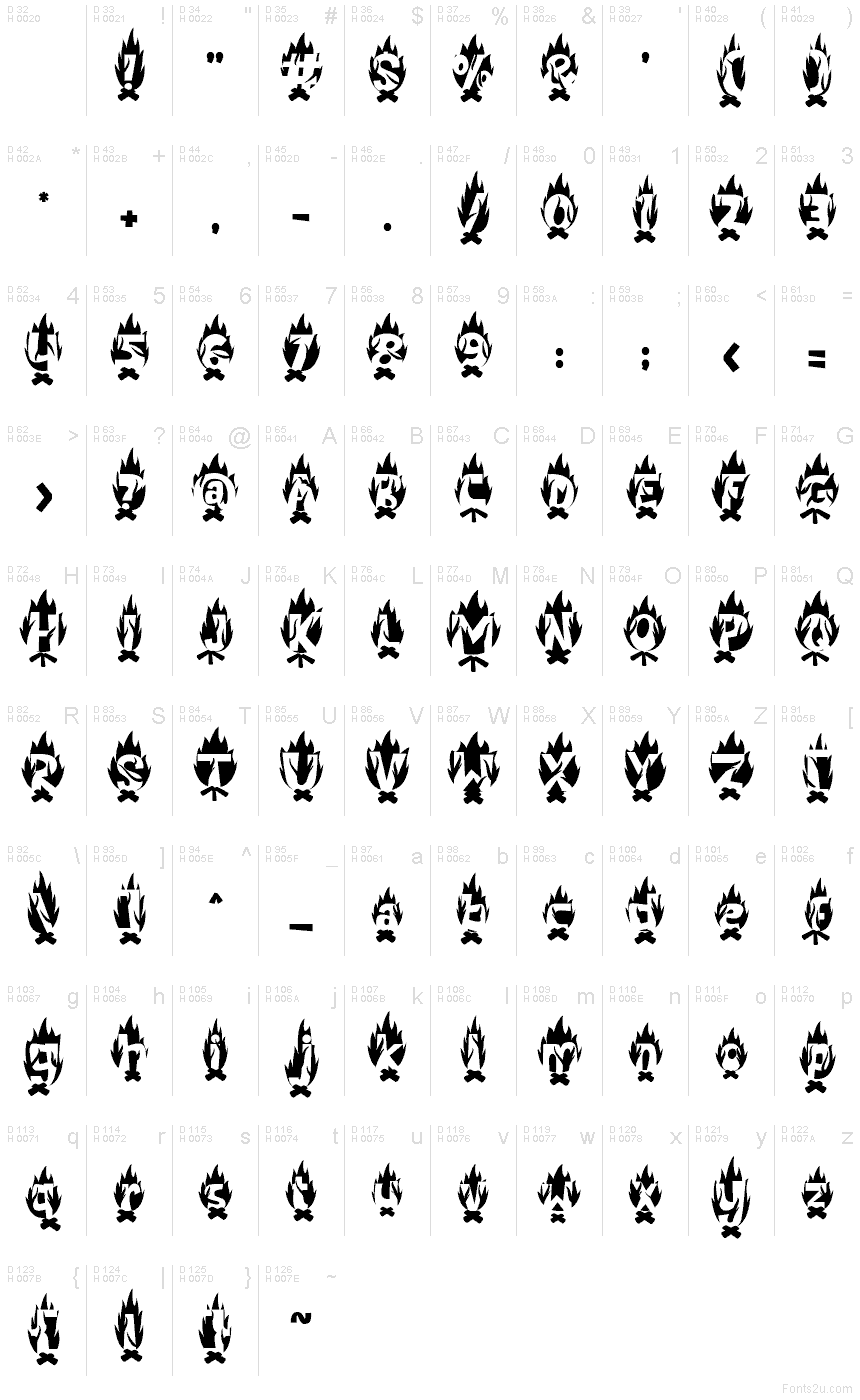
Cedar Heaven Fire
Cedar Heaven Fire font, designed by PutraCetol Studio, is a decorative display typeface featuring an abstract style and edgy aesthetic. This contemporary font exhibits distinctive visual elements and unique letter shapes that can be used to enhance design projects and make them stand out.